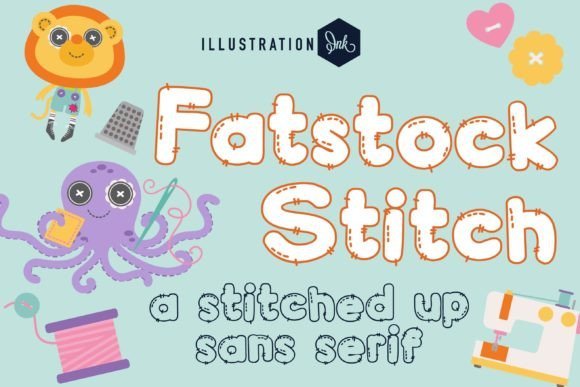
Unravel the Charm of Hand-Crafted Fonts: A Closer Look at Fatstock Stitch Font
There’s something magical about digging through a vintage sewing box, uncovering a tangled mess of threads and fabric scraps. The thrill of creating something from nothing, of bringing a discarded treasure back to life, is a feeling that many designers and crafters can relate to. And that’s exactly the essence of the Fatstock Stitch Font – a whimsical, hand-crafted font that’s designed to evoke the same sense of wonder and creativity.
As a designer, you’re always on the lookout for unique and distinctive fonts that can help your projects stand out from the crowd. The Fatstock Stitch Font is the perfect solution – its chunky sans serif design and stitch-and-fill version offer endless possibilities for creating one-of-a-kind designs. Whether you’re working on a logo, website, or everyday text, this font is sure to add a touch of personality and charm to your work.
Fatstock Stitch Font Key Features
- Font Family: Fatstock Stitch Font is a unique, hand-stitched-inspired font family with multiple styles and weights.
- Unique Characteristics: The Fatstock Stitch Font features intricate, hand-stitched-inspired details, giving it a distinctive and eye-catching look.
- Style Variations: The font family includes multiple styles, such as Regular, Italic, Bold, and Bold Italic, offering flexibility for designers to choose the perfect look for their projects.
Designer Review: Fatstock Stitch Font
I’ve had the chance to work with the Fatstock Stitch Font, and here’s my honest take on it.
- The Fatstock Stitch Font has a unique, hand-stitched aesthetic that adds a personal touch to any design.
- The font is highly customizable, with options to adjust stitch patterns, thread colors, and more.
- The font is well-suited for projects that require a whimsical, homespun feel, such as craft designs, stationery, and textiles.
- The Fatstock Stitch Font can be quite dense, which may make it difficult to read at small font sizes.
- The font may not be the best choice for formal or professional projects, as it has a distinctly casual feel.
- Some users may find the customization options overwhelming, which can make it difficult to achieve a cohesive look.
The Fatstock Stitch Font is a great choice for designers who want to add a touch of personality and whimsy to their projects. While it may have some limitations, the font’s unique aesthetic and customization options make it a valuable addition to any design toolkit.
For the best results, use the Fatstock Stitch Font in combination with bold or italic text to create a striking visual effect.
Experiment with different font sizes and colors to achieve a unique look.
Use the font in creative ways, such as creating custom titles or headings.
The Fatstock Stitch Font is ideal for:
Branding and marketing materials
Custom signage and banners
Event decorations and graphics
Alternatives to Fatstock Stitch Font for Designers